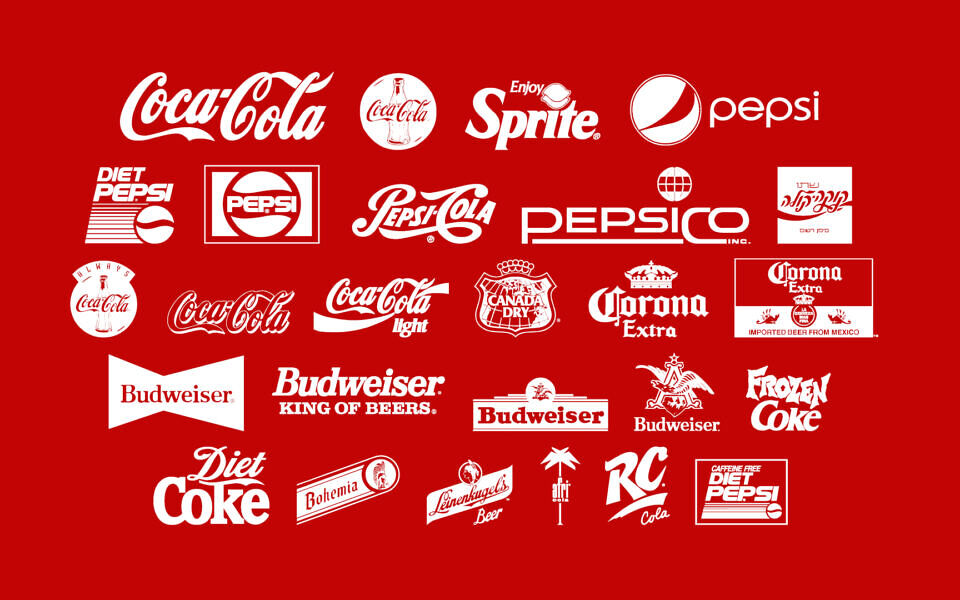
Logos And Logos TFB Font
Logos and Logos TFB is a highly functional dingbat font comprising 26 distinct vector glyphs. Designed entirely around iconic corporate branding and pop-culture symbols, it remaps standard keyboard strokes to universally recognized corporate logos, like Coca-Cola and Pepsi.
This dingbat font serves as a lightweight, scalable asset for mockups, graphic layouts, and web design, eliminating the need to source individual vector files for common brand markers.